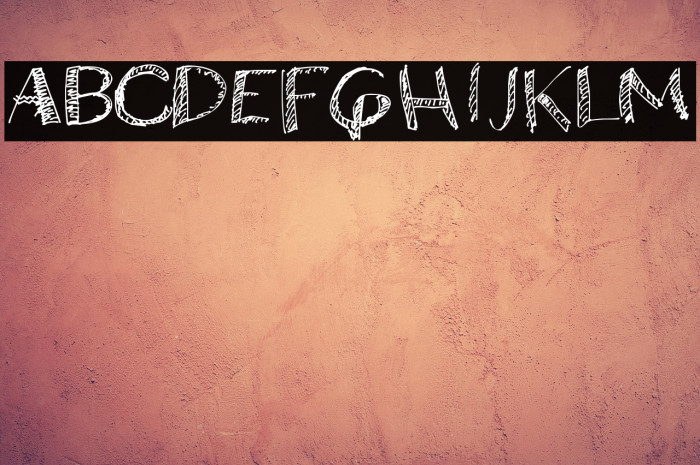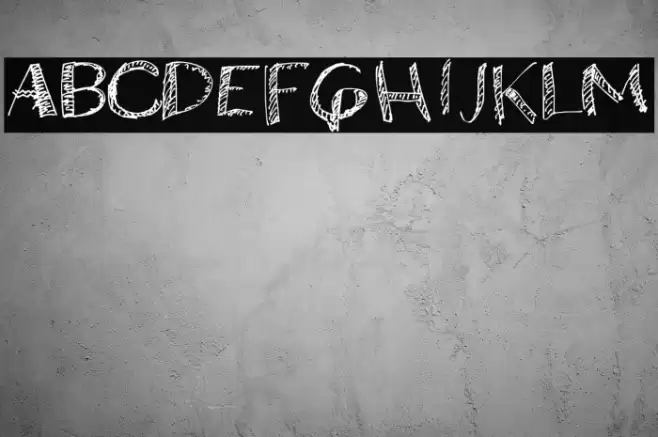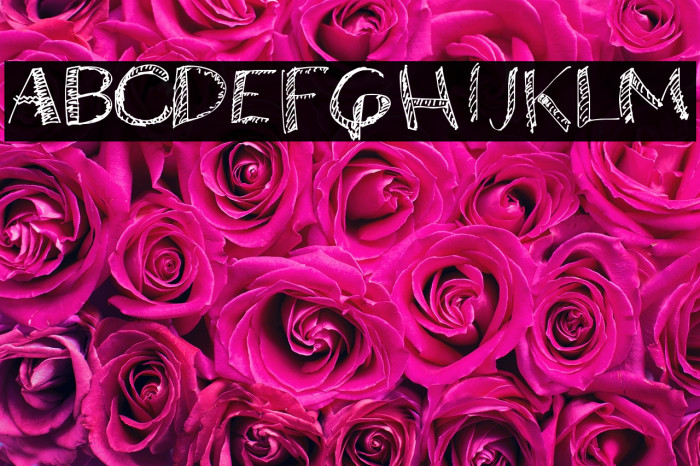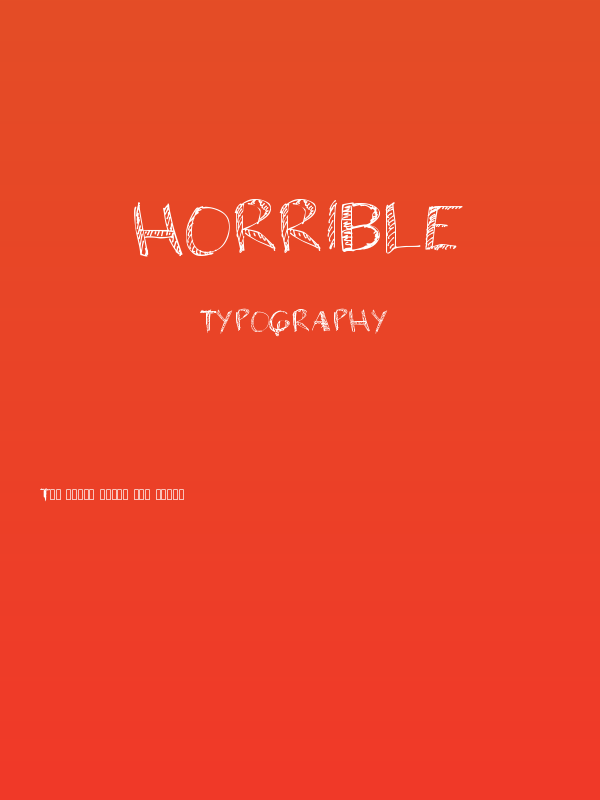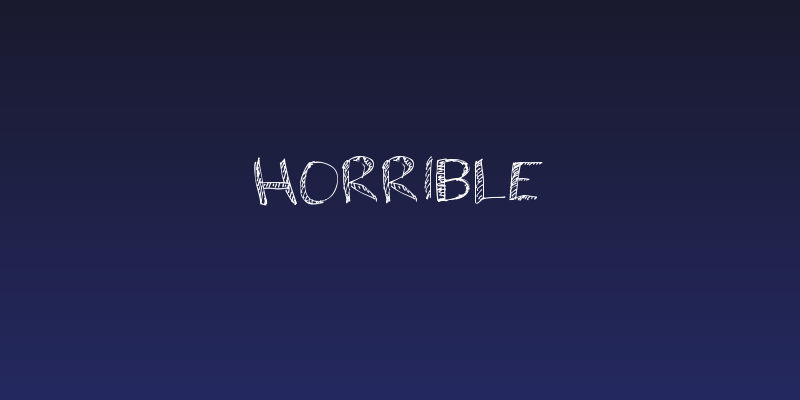
horrible Font
horrible Description
This font features a playful and quirky design with a hand-drawn aesthetic. Each character is uniquely crafted with uneven strokes and a sketch-like appearance, giving it a dynamic and energetic feel. The letters have a whimsical quality, with varying line thicknesses and irregular shapes that add to its charm. This font is perfect for projects that require a fun and informal touch, such as children's books, comic strips, or creative posters. Its distinctive style makes it stand out, while still maintaining legibility.
| Use Case | Headlines, Creative projects |
| Proposed Projects | Ideal for children's books, comic strips, creative posters, and informal designs. |